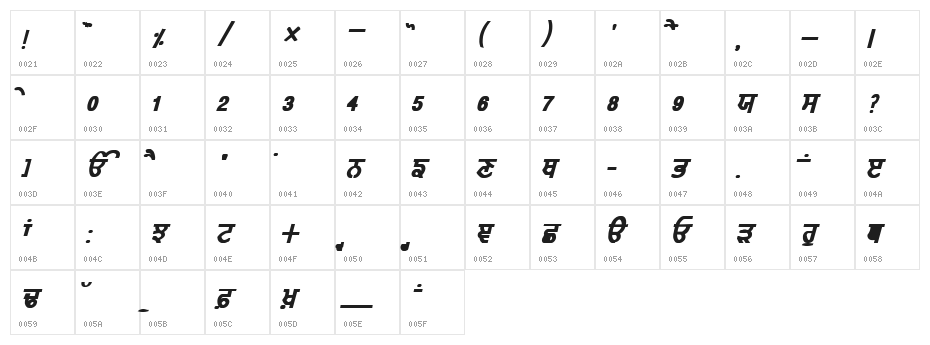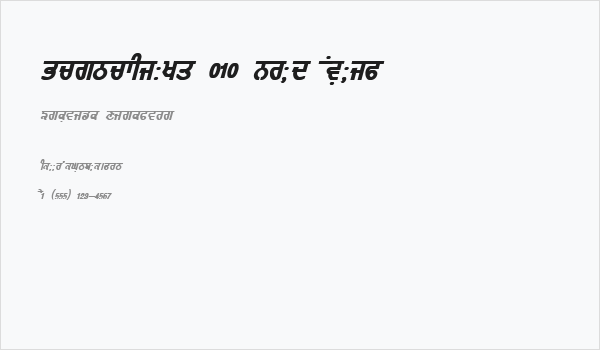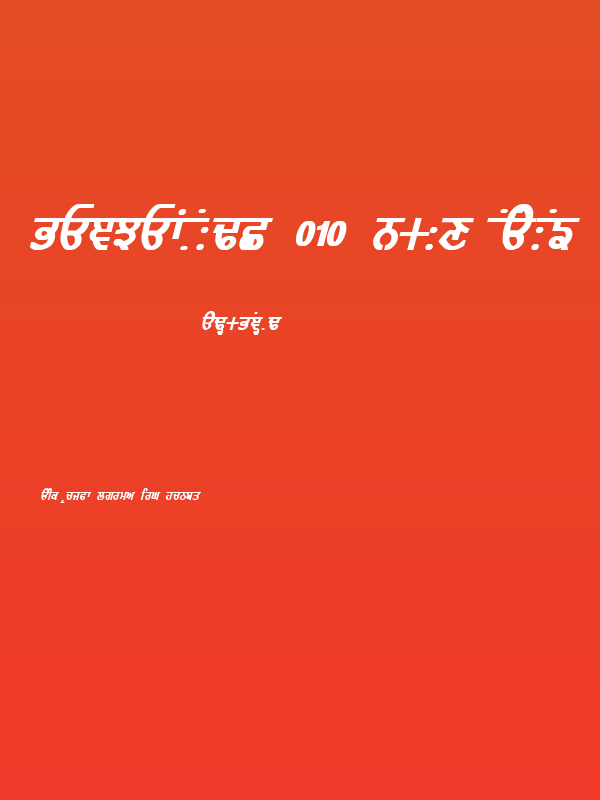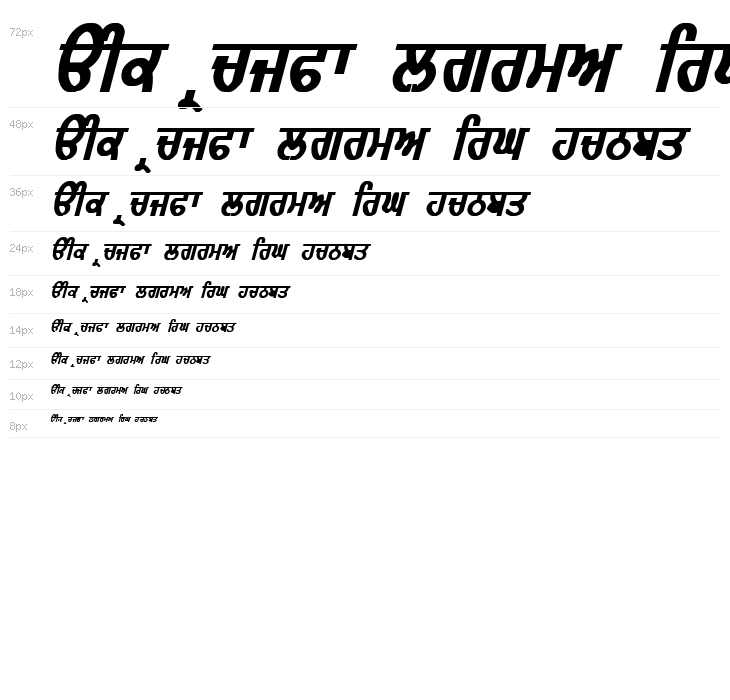
GurmukhiLys 010 Bold Italic Font
GurmukhiLys 010 Bold Italic Description
This font features a bold and italicized style, showcasing a dynamic and assertive appearance. The characters are designed with a slight slant, enhancing the italic effect while maintaining a strong visual impact. The strokes are thick and consistent, contributing to a bold presence. The font includes a full set of numerals and special characters, ensuring versatility for various applications. The overall design is modern with a touch of traditional influence, making it suitable for both contemporary and classic projects.